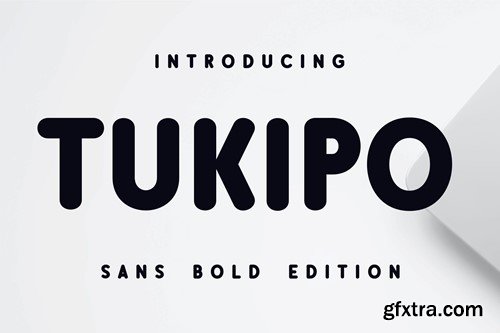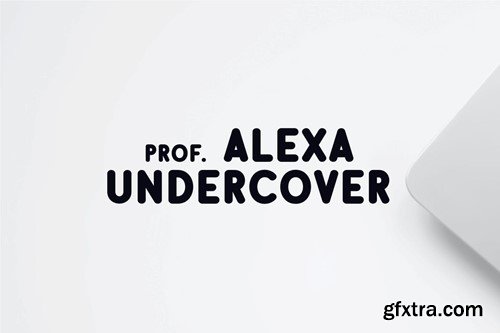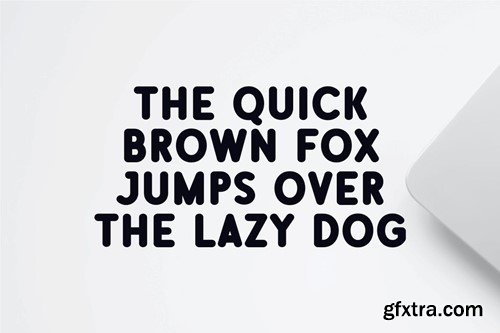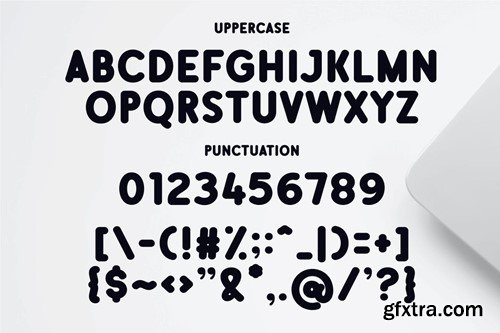
Tukipo Font
is a sans serif font family with a fat appearance, suitable for writing names / titles. This font is not suitable for writing in lower case letters, It is more recommended for use in large media. available in .OTF and .TTF formats. Thank You.